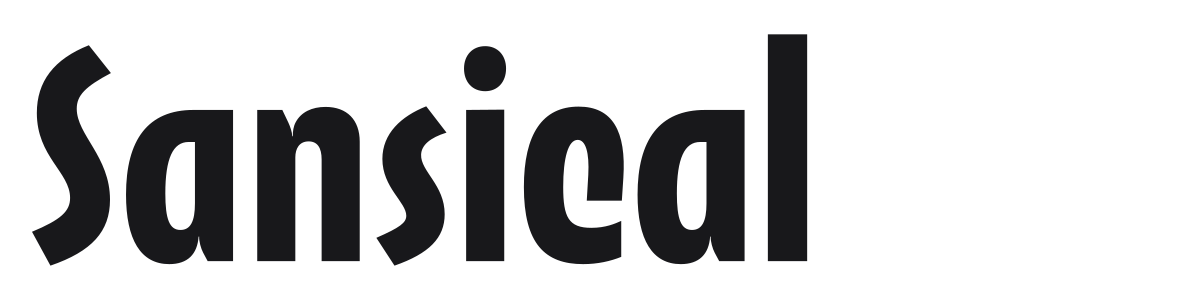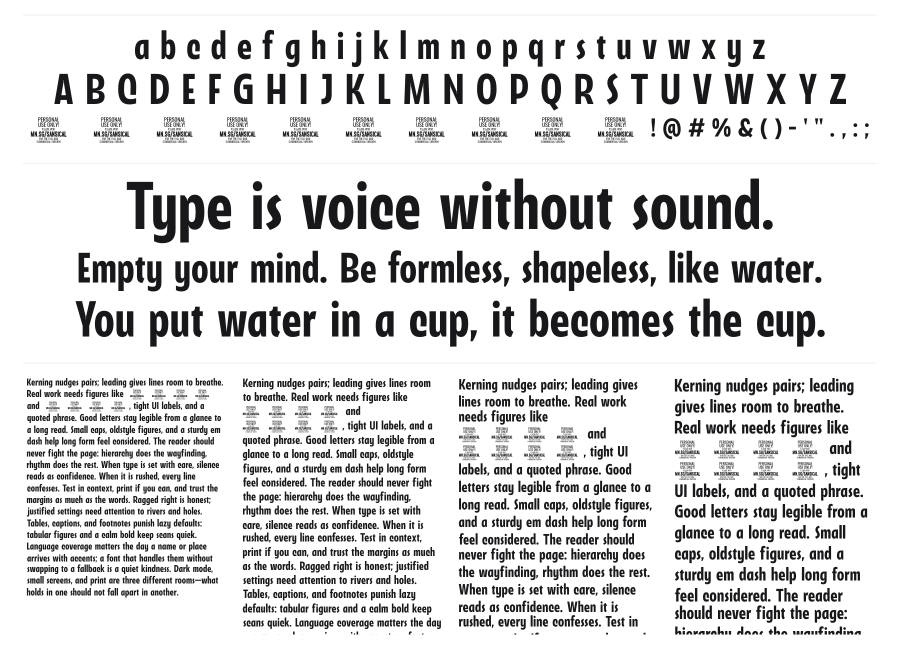
Sansical
Sansical is a heavily condensed bold grotesque with sharp terminal details and smooth curves that give it a distinct character without sacrificing legibility. The extreme compression and high optical density make it forceful at headline and poster sizes. Designed by Mans Greback with OpenType alternates, ligatures, and broad Latin language coverage built in.